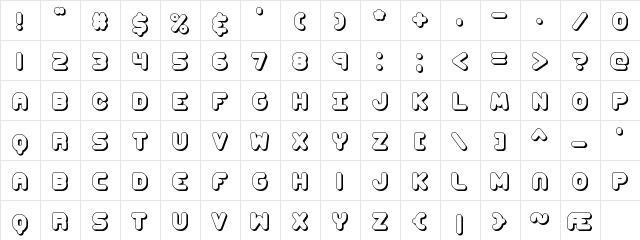
Corpulent Caps Shadow BRK Regular
Design Context for Corpulent Caps Shadow BRK Typeface
Corpulent Caps Shadow BRK brings ornamental detail and strong personality to headlines and identities, where visual impact matters more than quiet functionality.
Font Pairing: Pair with a clean neutral sans-serif for body copy to let Corpulent Caps Shadow BRK's character lead without overwhelming the composition.
Pro Tip: Treat Corpulent Caps Shadow BRK as the centrepiece of your typographic hierarchy. One strong heading set in a decorative face can carry an entire layout.